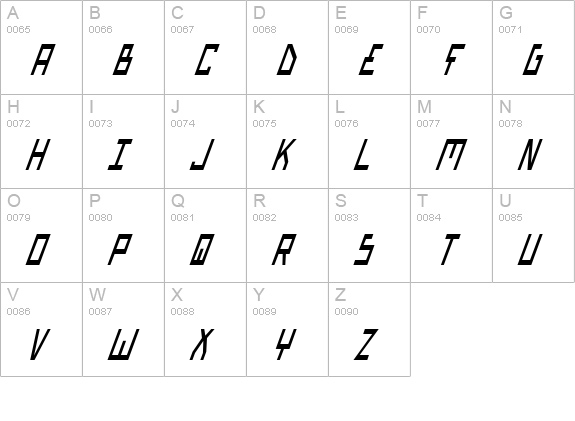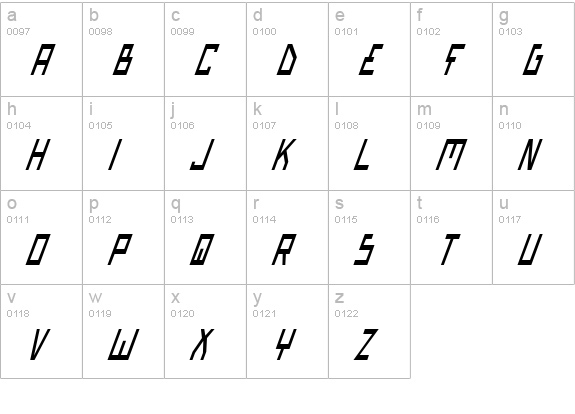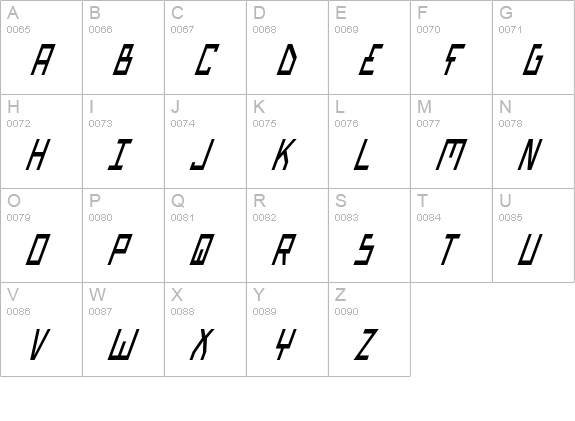
Bionic Type Cond Italic Font Details
Bionic Type Cond Italic is a distinctive, condensed-width, italic variant in the Bionic typeface family \xE2\x80\x94 well suited to design and typography projects.
Bionic Type Cond Italic font is a sleek and modern typeface that combines futuristic elements with classic elegance. Its italic style adds a dynamic and contemporary touch to any design project. The sharp edges and geometric shapes give it a bionic and robotic feel, perfect for tech-related designs and branding. What sets Bionic Type Cond Italic font apart is that it is not only visually striking but also versatile and easy to read. Whether used for headers, logos, or body text, this font makes a bold statement while maintaining readability. And the best part? Bionic Type Cond Italic font is available for free download at FontsMarket.com. You can easily access this cutting-edge font and enhance your projects with its unique style. Don't miss out on this opportunity to add a touch of modernity and sophistication to your designs with Bionic Type Cond Italic font.